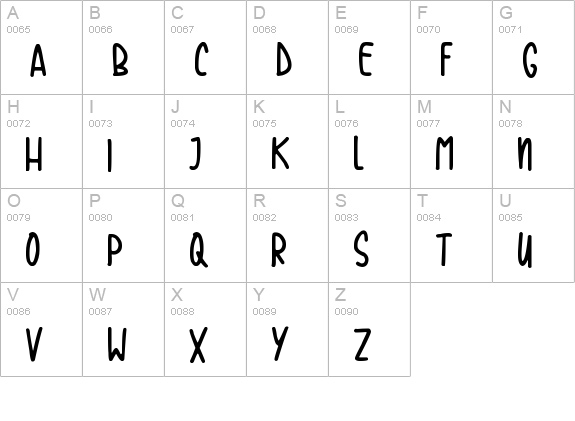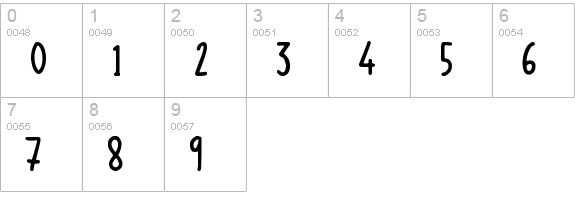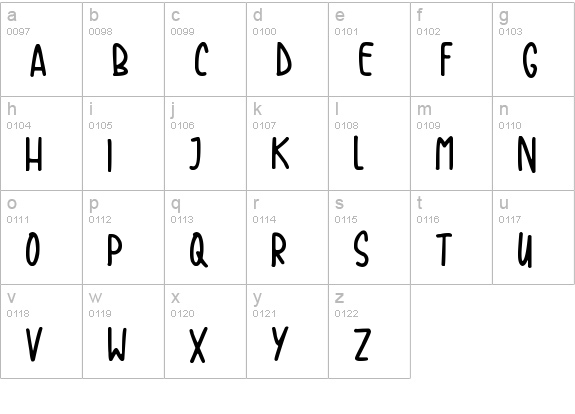
Casual Friday Font Details
Casual Friday is a donationware font in the Script > Handwritten category, designed by Darrell Flood. It has been downloaded 111 times and is available for Windows, Mac and Linux.
Casual Friday font is the perfect blend of playful and professional, making it an ideal choice for a laid-back yet stylish look. With its relaxed and friendly vibe, this font is sure to add a touch of charm to any design project. The smooth curves and modern aesthetic of Casual Friday font make it versatile and easy to read, making it suitable for a wide range of applications.